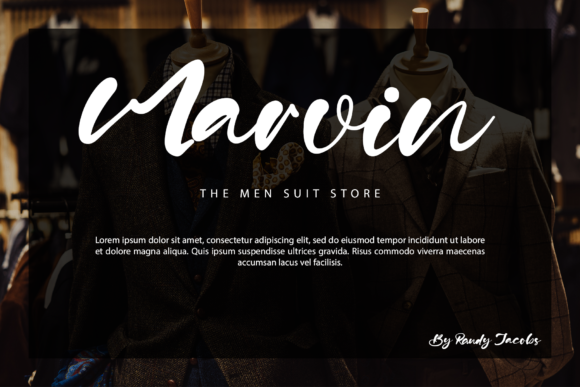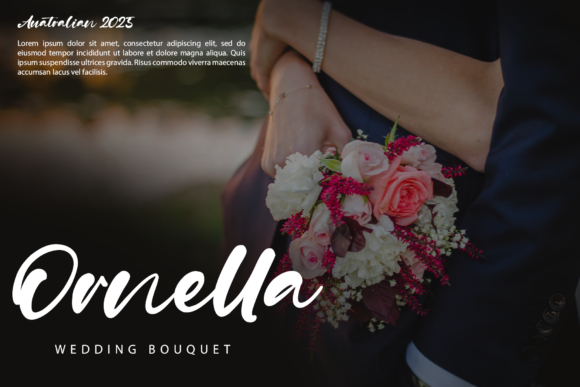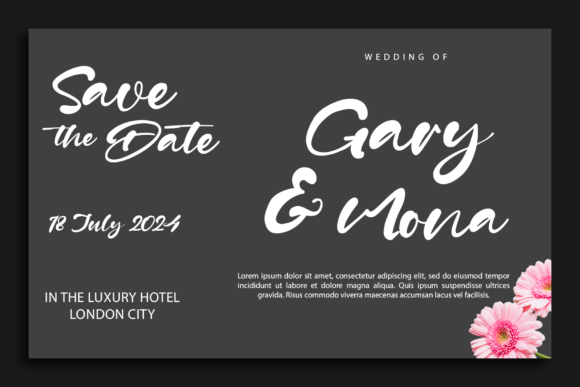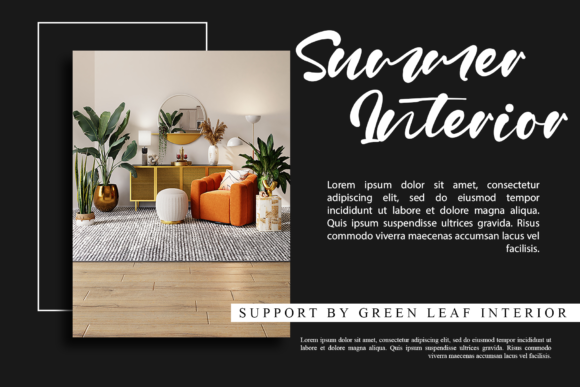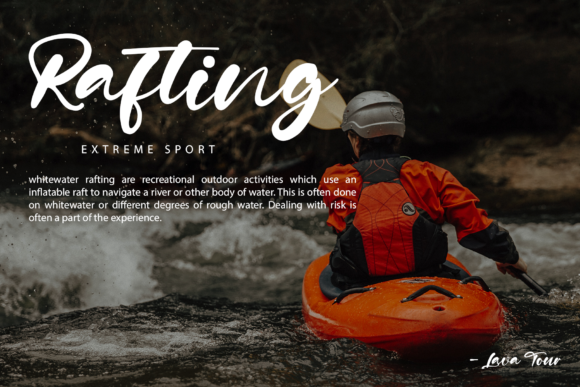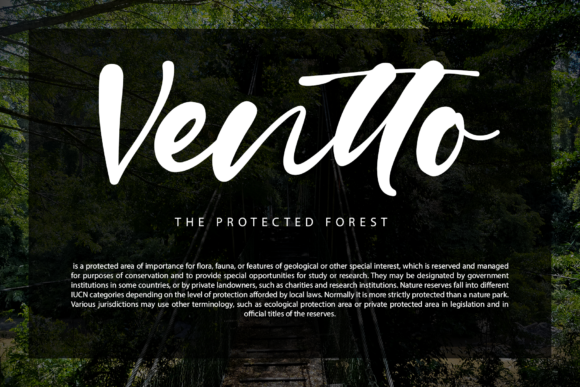
Introduction to Dorigami Font
Dorigami is a modern script typeface that has a collection of letters and numbers suitable for any of your creative projects.
It works great on logotypes, branding design, digital lettering, T-shirt/apparel design, posters, magazines, signs, advertising, and so much more .
Key Features of Dorigami Font
Why Choose Dorigami Font?
Dorigami Font offers exceptional quality and versatility, making it a valuable addition to your design toolkit. Whether you’re creating for personal projects or commercial use, Dorigami Font delivers professional results.